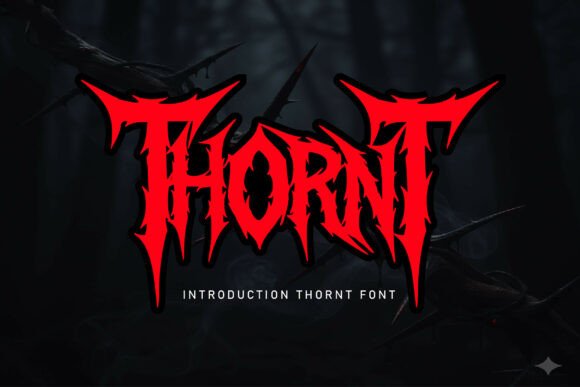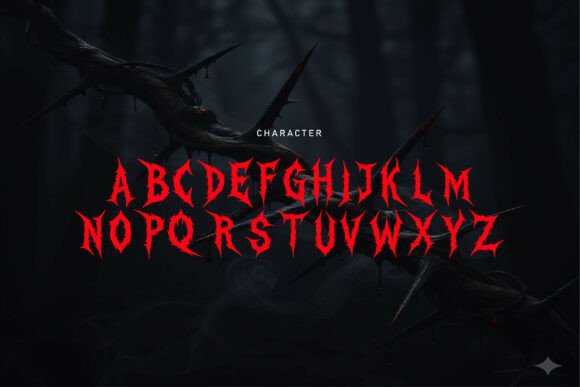
Thornt Font
Immerse in the dangerous allure of the THORN TYPEFACE — a bold Gothic blackletter display font crafted from the depths of dark mysteries.
With its aggressive, thorn-shaped letterforms, this font exudes a commanding presence, ideal for conveying themes of intensity, rebellion, and dark elegance. Its high-contrast, razor-sharp details comprise a full uppercase alphabet and numbers, making it perfect for hard-hitting metal band logos, eerie horror posters, and suspenseful gaming titles.
With the THORN TYPEFACE, Gothic brutality seamlessly meets contemporary design precision, resulting in an aesthetic imbued with a menacing red glow, suitable for dark fantasy, occult, or edgy art formations.
Let your designs scream dark fashion statements, be they horror or metal album covers, gaming logos, tattoo visuals, or urban streetwear. Feast your eyes on the THORN TYPEFACE, where boldness and darkness meet.